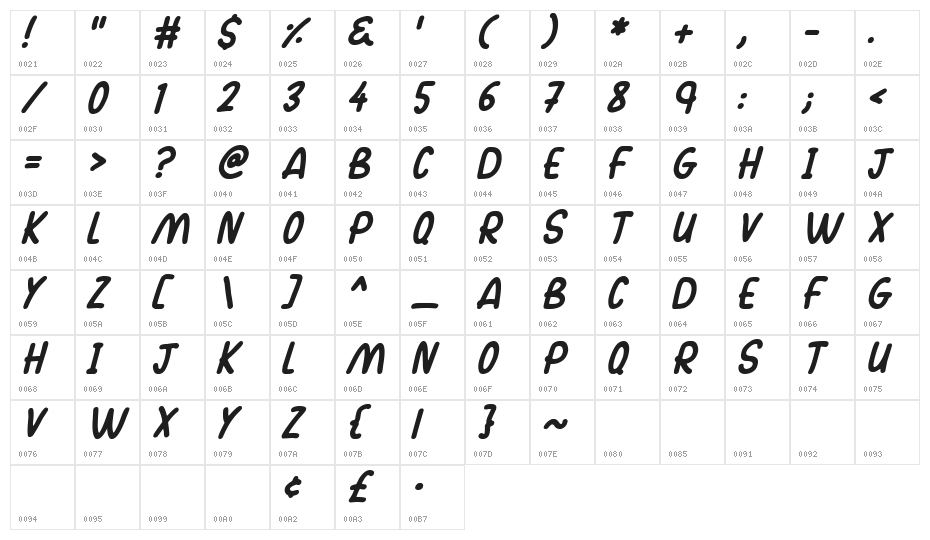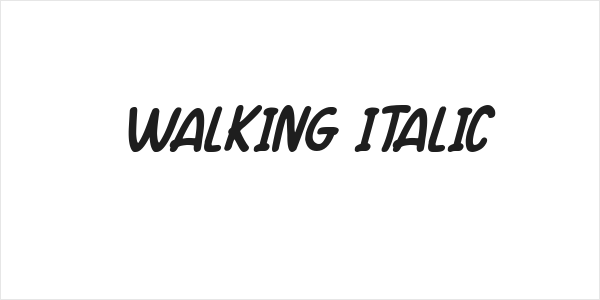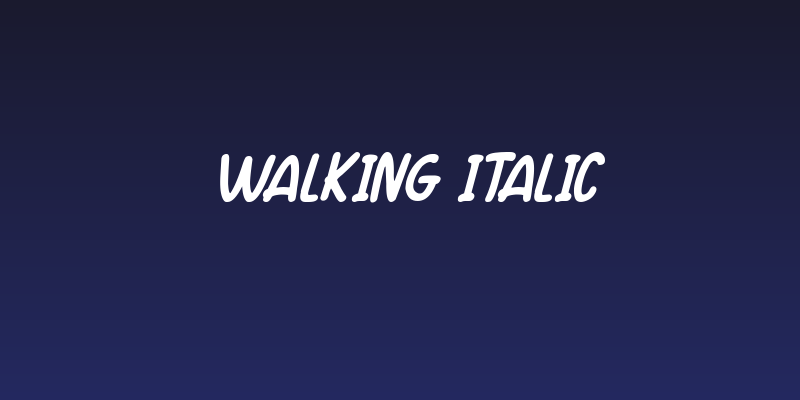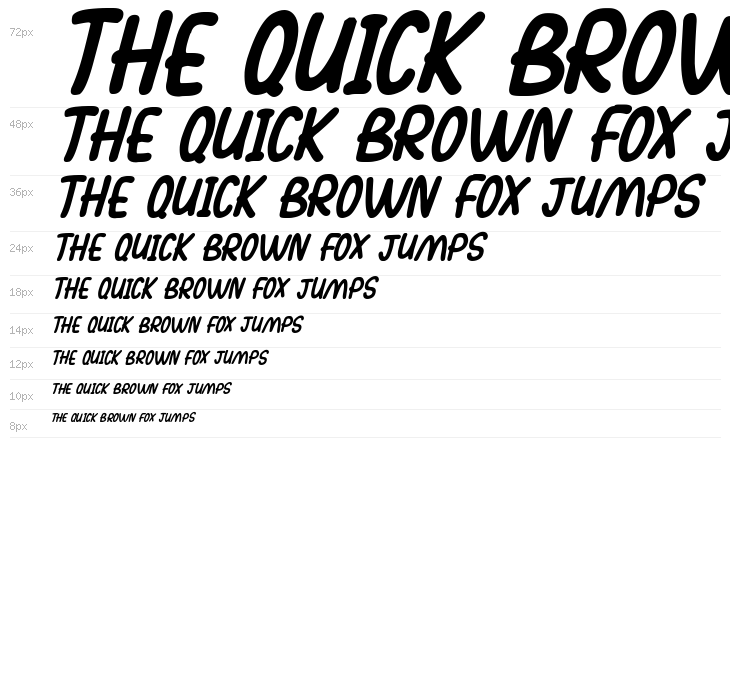
Walking Italic Font
Walking Italic Description
This font features a bold, italicized style with a playful and dynamic appearance. The characters are rounded and slightly slanted, giving a sense of movement and energy. The strokes are thick and consistent, providing a strong visual impact. The font maintains a uniform width across all characters, ensuring readability while adding a touch of flair. The numbers and special characters are designed to match the overall aesthetic, making it suitable for a variety of creative applications.
| Proposed Projects | Ideal for branding, posters, headlines, and any project requiring a bold and energetic typeface. |